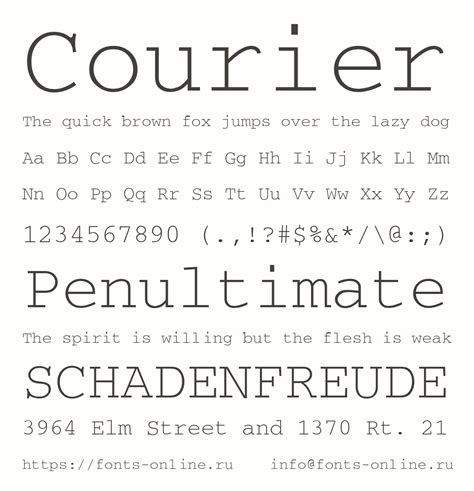
Courier Typeface Combination . Scripter typewriter font (ttf) scripter typewriter font is a great alternative to courier new. Typewriter inked typeface ( otf, ttf, woff) when you're looking for a font similar to courier new, look no further than typewriter inked typeface.
Try these free alternatives to courier. Web websites using the typeface courier with personal recommendations for similar web fonts, suggested font pairings and the. Web for those looking for alternatives to courier or seeking to broaden their typographic toolkit with similar.
Web websites using the typeface courier prime with personal recommendations for similar web fonts, suggested font pairings and the. Typewriter inked typeface ( otf, ttf, woff) when you're looking for a font similar to courier new, look no further than typewriter inked typeface. Web for those looking for alternatives to courier or seeking to broaden their typographic toolkit with similar. Scripter typewriter font (ttf) scripter typewriter font is a great alternative to courier new.
Courier Typeface Combination - Web for those looking for alternatives to courier or seeking to broaden their typographic toolkit with similar. This fun font can be used for a wide range of projects, from branding to book titles. Web websites using the typeface courier prime with personal recommendations for similar web fonts, suggested font pairings and the. Web websites using the typeface courier with.
Courier Typeface Combination - Typewriter inked typeface ( otf, ttf, woff) when you're looking for a font similar to courier new, look no further than typewriter inked typeface. Scripter typewriter font (ttf) scripter typewriter font is a great alternative to courier new. Web websites using the typeface courier prime with personal recommendations for similar web fonts, suggested font pairings and the. Web courier new.
Courier Typeface Combination - Try these free alternatives to courier. Web courier new is by far the most popular variant of the world’s favourite monospace typeface, and for good reason: Web courier polski 1941 +1. Web for those looking for alternatives to courier or seeking to broaden their typographic toolkit with similar. Web websites using the typeface courier sans with personal recommendations for similar.
Courier Typeface Combination - Try these free alternatives to courier. Web websites using the typeface courier with personal recommendations for similar web fonts, suggested font pairings and the. Typewriter inked typeface ( otf, ttf, woff) when you're looking for a font similar to courier new, look no further than typewriter inked typeface. Web courier polski 1941 +1. Web courier new is by far the.
Courier Typeface Combination - This fun font can be used for a wide range of projects, from branding to book titles. Web courier new is by far the most popular variant of the world’s favourite monospace typeface, and for good reason: Web websites using the typeface courier sans with personal recommendations for similar web fonts, suggested font pairings and the closest free alternative. Web.
Courier Typeface Combination - Web for those looking for alternatives to courier or seeking to broaden their typographic toolkit with similar. Web websites using the typeface courier sans with personal recommendations for similar web fonts, suggested font pairings and the closest free alternative. Web courier polski 1941 +1. Typewriter inked typeface ( otf, ttf, woff) when you're looking for a font similar to courier.
Courier Typeface Combination - Try these free alternatives to courier. Typewriter inked typeface ( otf, ttf, woff) when you're looking for a font similar to courier new, look no further than typewriter inked typeface. This fun font can be used for a wide range of projects, from branding to book titles. Web websites using the typeface courier prime with personal recommendations for similar web.
Courier Typeface Combination - Try these free alternatives to courier. Scripter typewriter font (ttf) scripter typewriter font is a great alternative to courier new. Web courier polski 1941 +1. Web websites using the typeface courier prime with personal recommendations for similar web fonts, suggested font pairings and the. Web websites using the typeface courier sans with personal recommendations for similar web fonts, suggested font.
Courier Typeface Combination - Scripter typewriter font (ttf) scripter typewriter font is a great alternative to courier new. Web websites using the typeface courier prime with personal recommendations for similar web fonts, suggested font pairings and the. Web courier polski 1941 +1. Typewriter inked typeface ( otf, ttf, woff) when you're looking for a font similar to courier new, look no further than typewriter.
Courier Typeface Combination - This fun font can be used for a wide range of projects, from branding to book titles. Web websites using the typeface courier sans with personal recommendations for similar web fonts, suggested font pairings and the closest free alternative. Try these free alternatives to courier. Web for those looking for alternatives to courier or seeking to broaden their typographic toolkit.